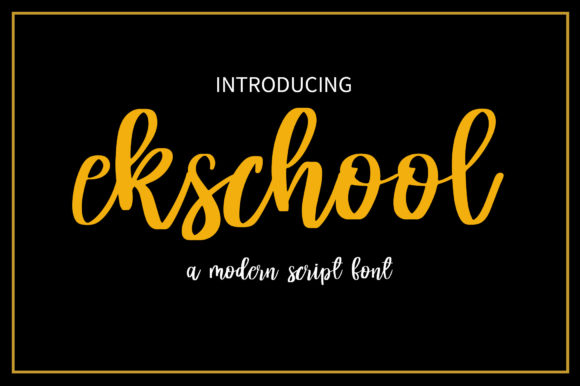
Journey into the world of Ekschool Font, a spectacular script font born from the depths of ingenuity. Each character dances gracefully across the page, exuding a timeless beauty that captivates hearts. With Ekschool, your designs will radiate finesse, leaving an indelible mark on all who behold them.
Unleash your imagination and let Ekschool guide you through a realm of endless possibilities. Its carefully crafted glyphs and delicate flourishes lend a touch of class to any project, whether it's an invitation, a logo, or a heartfelt letter. Indulge in the opulence of Ekschool and transform your creative visions into tangible masterpieces.
Ekschool's versatility knows no bounds. It seamlessly adapts to a myriad of styles, adding a touch of elegance to both formal and casual designs. Its enchanting curves and sweeping lines evoke a sense of nostalgia, while its modern appeal ensures that your projects remain relevant and captivating.
As you craft your designs with Ekschool, you'll discover a font that complements your every move. Its intuitive design and effortless flow make it a joy to use, allowing you to create stunning visuals with minimal effort. Let Ekschool be your creative partner, guiding you toward design excellence.
Embrace the beauty of Ekschool and elevate your projects to new heights. Its timeless charm and versatility will transform your creative endeavors into works of art. Experience the magic of Ekschool today and let your designs bloom with sophistication and grace.